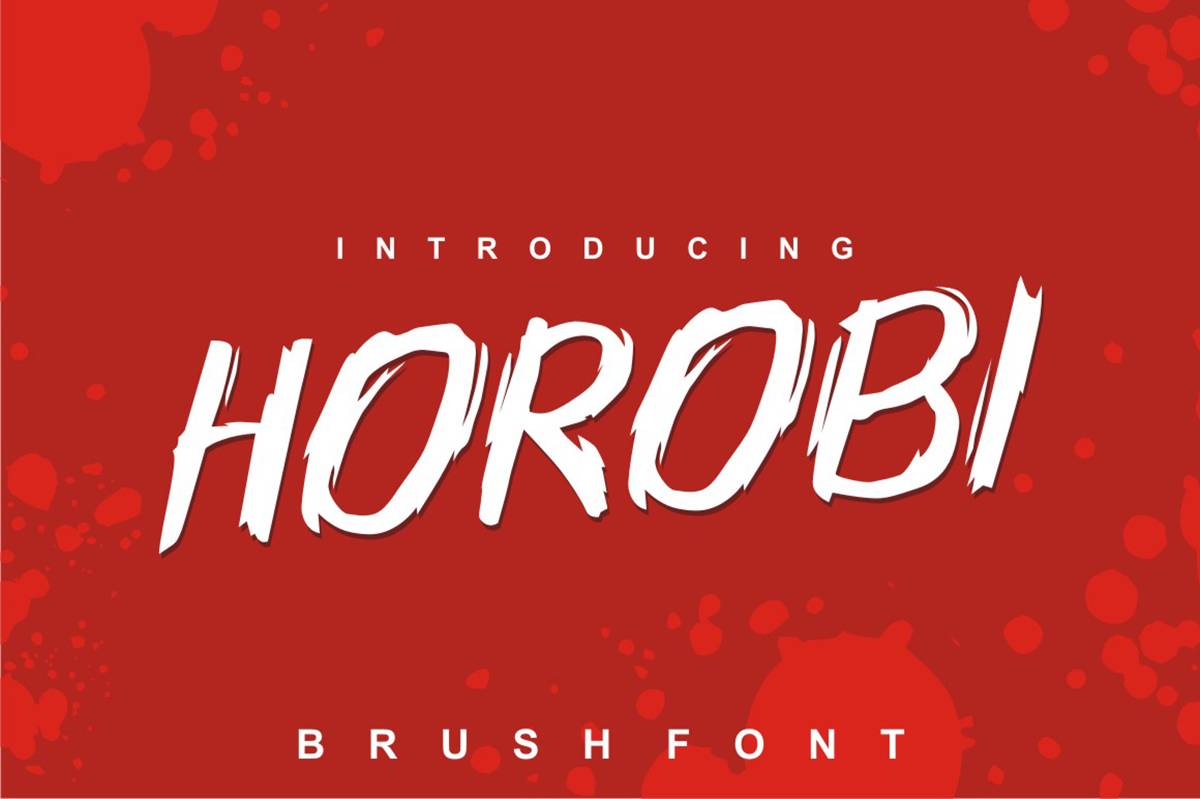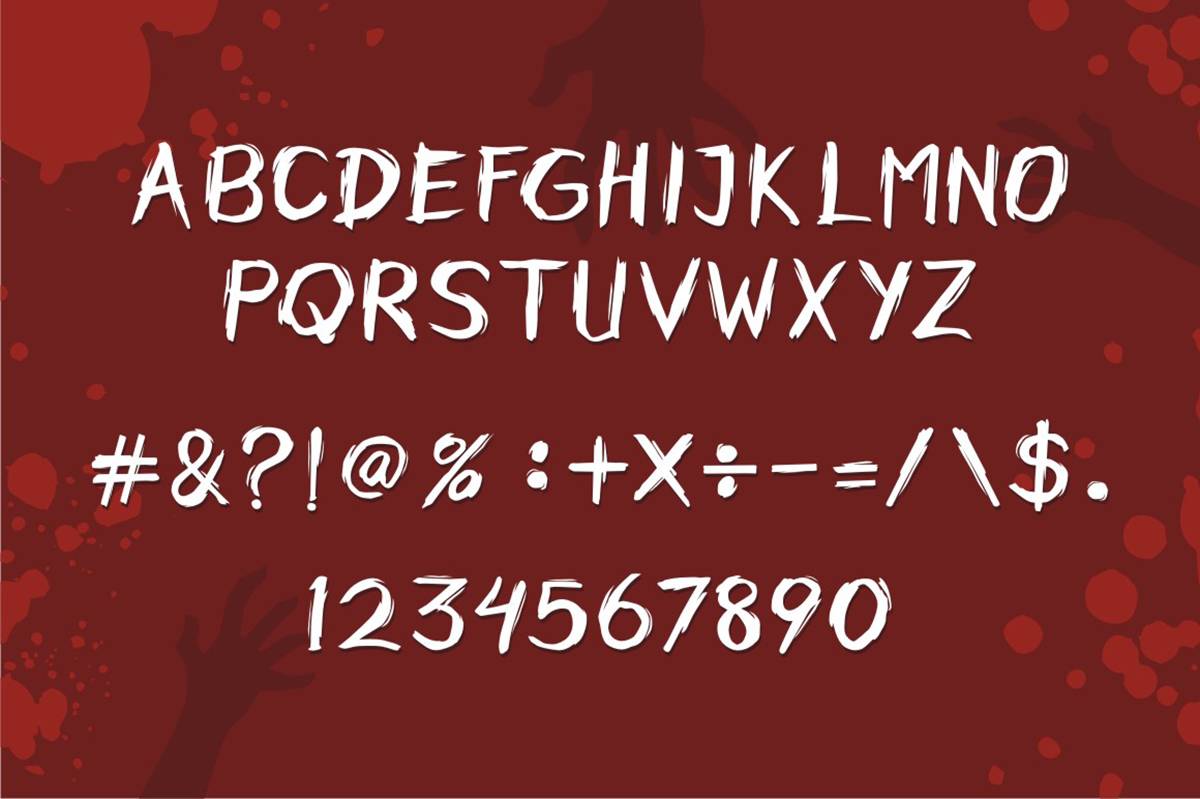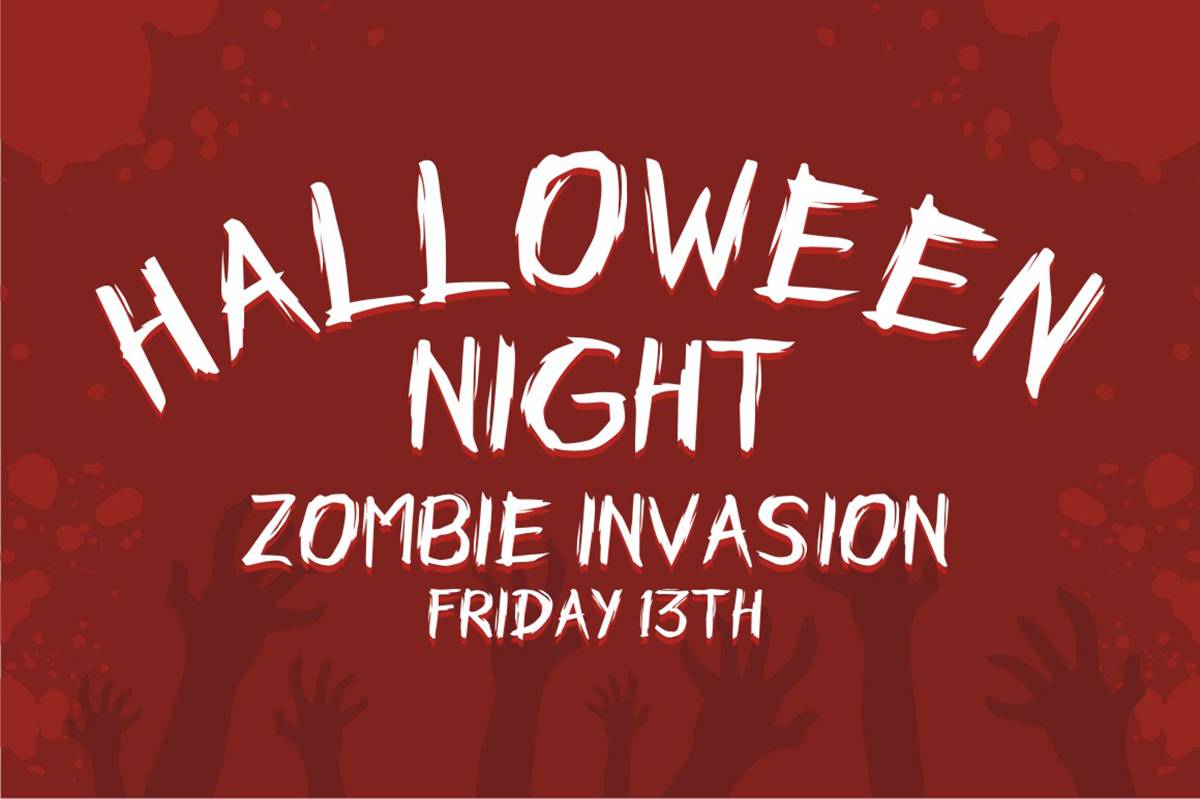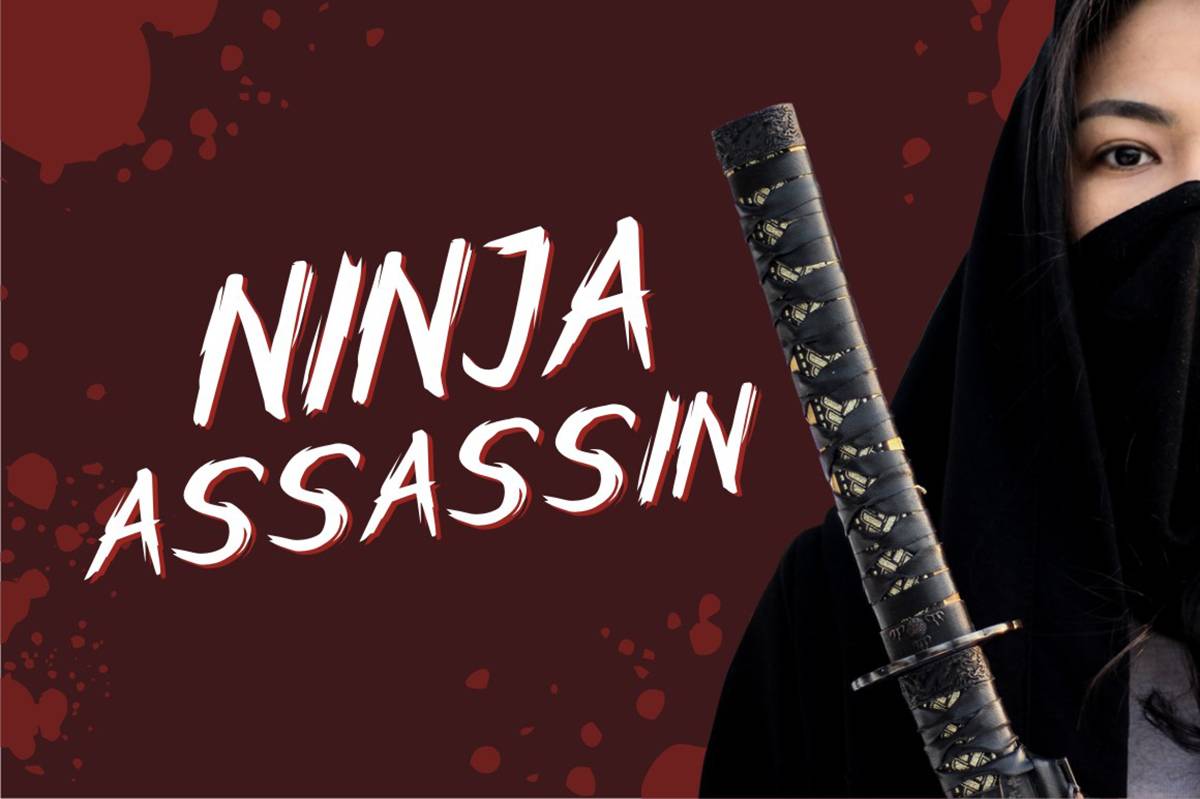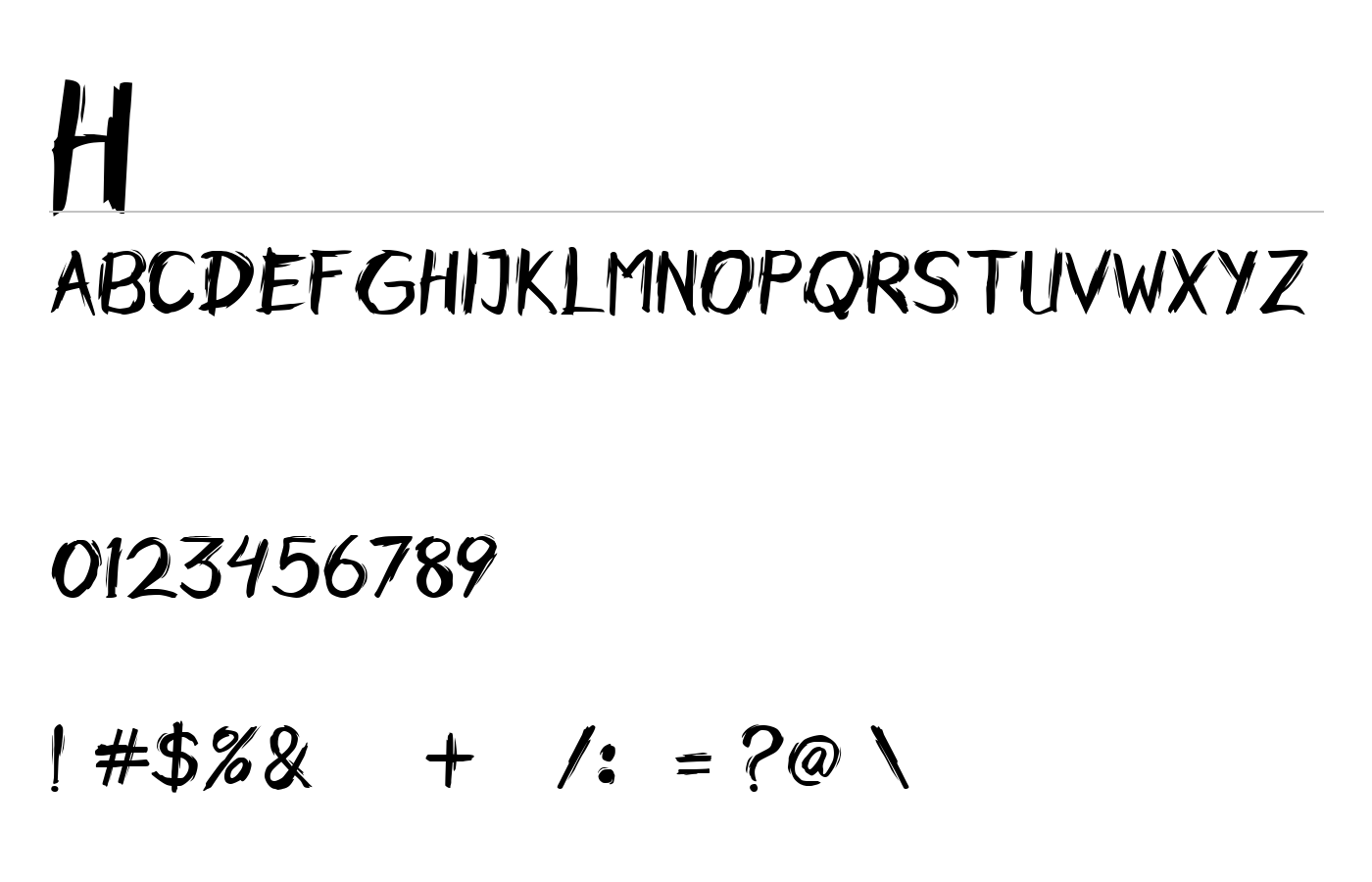
Horobi is an expressive, hand-drawn sans serif font with a rough, brushstroke texture that gives it a bold and dynamic feel. Its irregular letterforms and high contrast in stroke width create a lively, casual vibe, making it ideal for artistic, edgy, or informal branding and creative projects. This font works well in logos, posters, and headlines where a spontaneous, handwritten look is desired to add personality and energy.
Horobi Font
About Horobi Font